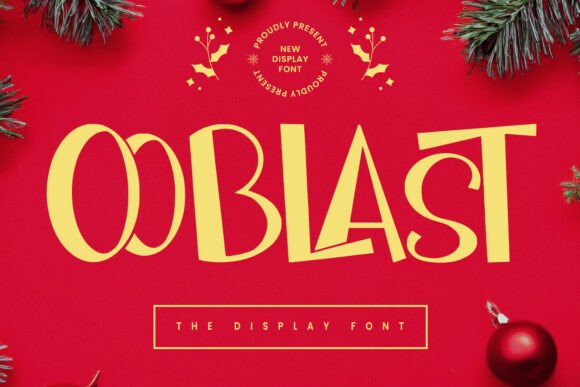
Ooblast: The Quirky Display Font for Joyful Branding
I opened my blank brand board this morning with a specific goal in mind: to create a visual identity that felt authentic, warm, and undeniably human. My client wanted to launch a small, independent skincare line that emphasized natural ingredients and a playful approach to self-care. After scrolling through hundreds of serif fonts and clean sans serifs, I realized the project needed something more spirited. That was when I pulled up Ooblast, a cute and quirky display font that will add an incredibly joyful touch to your designs. Placing it on the initial logo draft immediately shifted the entire mood of the presentation, transforming a standard layout into something vibrant and memorable.
Ooblast for Skincare Packaging and Product Labels
Ooblast transforms simple product labels into eye-catching assets that demand attention on crowded shelves. When I tested this beautiful display font on mockups for our client's serum bottles, the rounded edges and whimsical character shapes created an instant sense of friendliness. Unlike rigid corporate typefaces, these Fonts allow you to inject personality directly into the packaging design without overwhelming the consumer. The weight distribution is perfect for short-form text like "Organic," "Gentle," or "Fresh," making the product feel handcrafted rather than mass-produced. Seeing the font applied to a matte black sticker against a white bottle showed me how it stands out while maintaining a premium feel.
- The unique letterforms create immediate brand recognition on retail displays.
- Perfect for highlighting key ingredients or selling points on front-facing labels.
- Adds a tactile, handwritten quality that resonates with eco-conscious buyers.
Ooblast as a Hero Typeface for Creative Studio Websites
Designers often struggle to find a headline font that balances professionalism with creativity, but Ooblast solves this dilemma effortlessly for modern websites. I integrated the font into the hero section of a creative studio's homepage, where it served as the primary anchor for their services page. The playful nature of the glyphs breaks the monotony of standard web typography, encouraging visitors to linger longer on the page. By using Ooblast for the main value proposition, we established a tone that suggested innovation and fun, which is crucial for agencies targeting younger demographics. It proves that a display font can be just as functional for digital interfaces as it is for print media.
Ooblast for Social Media Graphics and Instagram Stories
In the fast-paced world of social media, catching the eye within seconds is essential, and Ooblast delivers that impact instantly. I used this cute and quirky display font to design a series of promotional stories for a local boutique, and the engagement metrics jumped significantly compared to previous posts using generic sans-serifs. The font's distinct shape makes text overlays pop against complex background images or video content. Whether you are creating event flyers, sale announcements, or behind-the-scenes reels, adding this beautiful display font to each of your creative ideas ensures your content looks polished and intentional. It turns a simple caption into a graphic element that feels custom-made.
Pairing Ooblast with Serif and Sans-Serif Typefaces
While Ooblast shines as a statement maker, pairing it correctly is vital for a cohesive brand identity. In my recent project, I paired the display font with a clean, geometric sans-serif for body copy to ensure readability remained high. This combination allows the headline to carry the emotional weight while the supporting text communicates details clearly. Alternatively, combining Ooblast with a classic serif font can create a charming contrast between traditional elegance and modern playfulness. The key is to let the quirky nature of the display font take center stage while keeping secondary elements understated. Testing these combinations in your own design software will help you find the perfect balance for your specific niche.
Ooblast for Event Posters and Festival Flyers
When designing materials for live events, the goal is to generate excitement before the doors even open, and Ooblast is perfectly suited for this task. I recently drafted a poster for a community art festival, and the font's bubbly contours seemed to bounce off the paper, inviting people to participate. Its large x-height and open counters make it highly legible even from a distance, which is critical for outdoor signage. Adding this beautiful display font to each of your creative ideas for event marketing guarantees that your posters look energetic and inviting. It bridges the gap between professional design and community-driven vibes, making any gathering feel like a celebration.
Testing Ooblast Across Different Commercial Applications
Before committing to a full rebrand, it is always wise to test Ooblast across various commercial applications to see how it holds up in different contexts. I ran a series of experiments placing the font on business cards, merchandise tags, and email headers to check for consistency. The versatility of these Fonts means they adapt well to both small-scale details and large-format prints without losing their character. For instance, on a tiny product tag, the font remains crisp, while on a large banner, it commands authority through its sheer presence. Checking the included styles and alternates ensures you have enough variety to maintain visual interest throughout your entire brand system.
Ooblast for Handmade Shop Signage and Window Displays
Local businesses need a way to stand out from chain stores, and Ooblast offers a unique solution for handmade shop signage. I designed a window display concept for a craft store where the font was used to highlight seasonal collections, and passersby stopped to read the cheerful messages. The quirky personality of the typeface suggests that the products inside are made with care and individuality. It adds an incredibly joyful touch to your designs by turning a standard storefront into a welcoming space that invites exploration. For entrepreneurs looking to build a strong local presence, incorporating this display font into your physical branding can make a significant difference in foot traffic.
Why Ooblast Enhances Brand Recognition and Loyalty
Building a loyal customer base often comes down to creating a memorable visual language, and Ooblast provides exactly that. By consistently using this cute and quirky display font across all touchpoints, from your website header to your shipping boxes, you create a unified brand experience. Customers begin to associate the unique shapes of the letters with the values of your business, such as joy, creativity, and authenticity. Adding this beautiful display font to each of your creative ideas helps differentiate your brand in a saturated market. When designers choose the right typeface, they aren't just selecting letters; they are choosing the voice of their brand, and Ooblast speaks with a distinct, happy confidence.
If you are ready to elevate your next branding project, consider how Ooblast can bring a fresh perspective to your work. Whether you are designing for a startup, a non-profit, or a personal portfolio, the flexibility of these Fonts allows you to tell your story with flair. Don't settle for the same old typographic choices; instead, explore the potential of a font that truly understands the power of joy in design. Start experimenting today and watch your projects transform into standout masterpieces that resonate with audiences everywhere.